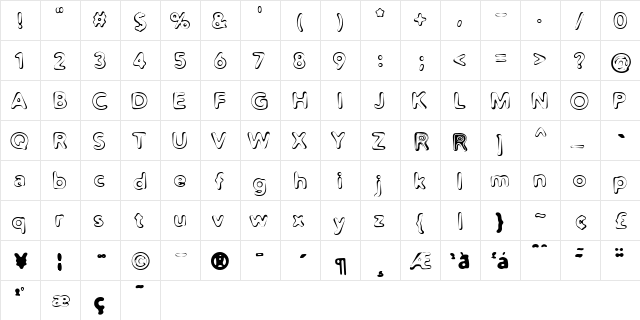
Distro II Squidgey Squidgey
| Designer | Peter A Designer |
Design Context for Distro II Squidgey Typeface
Distro II Squidgey is a composed and adaptable typeface that performs quietly and consistently across a wide range of design contexts.